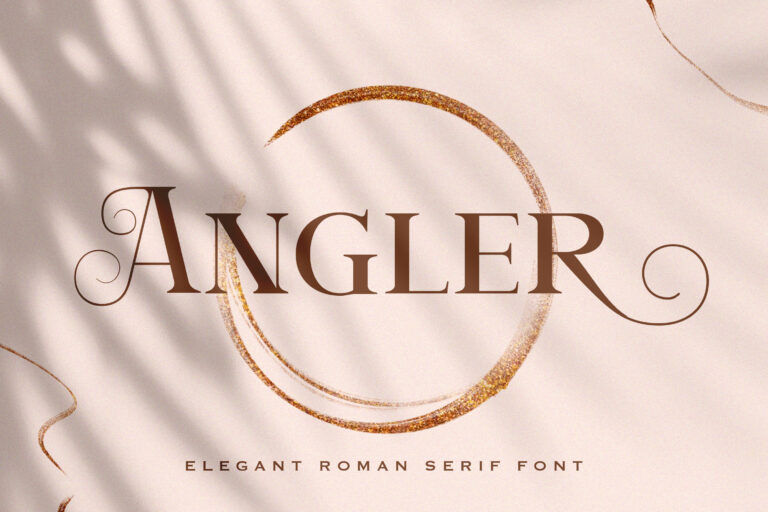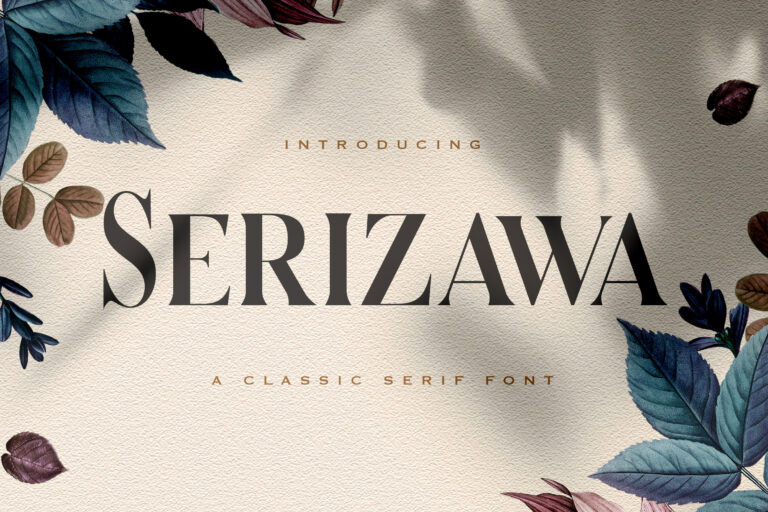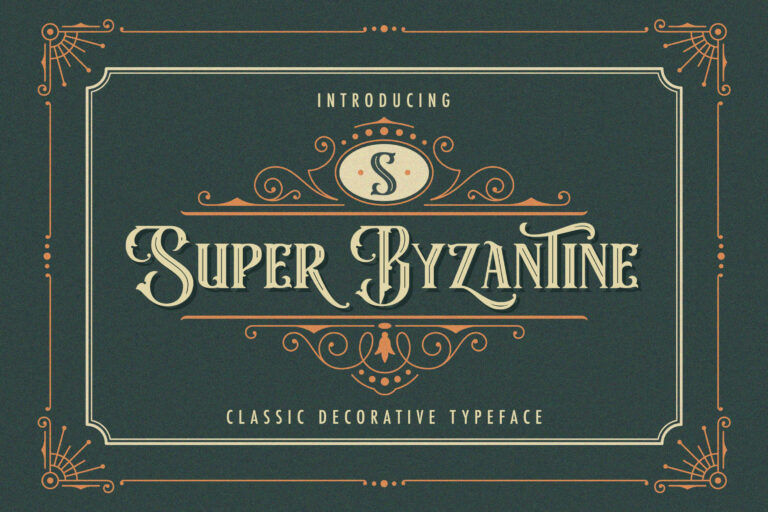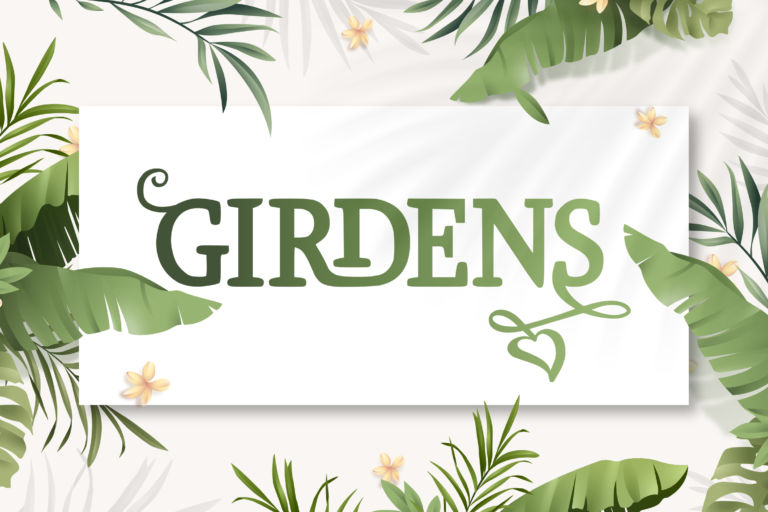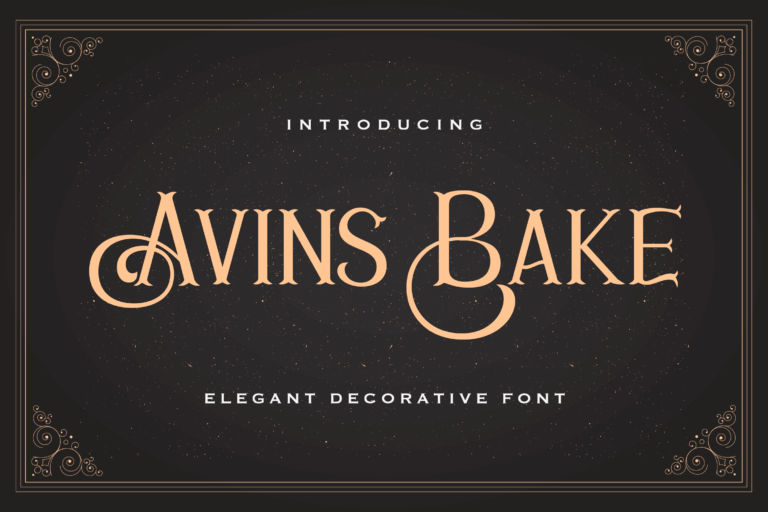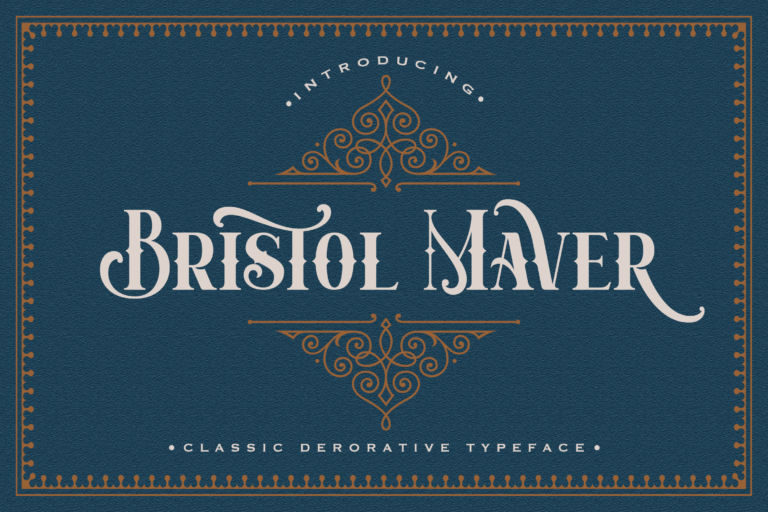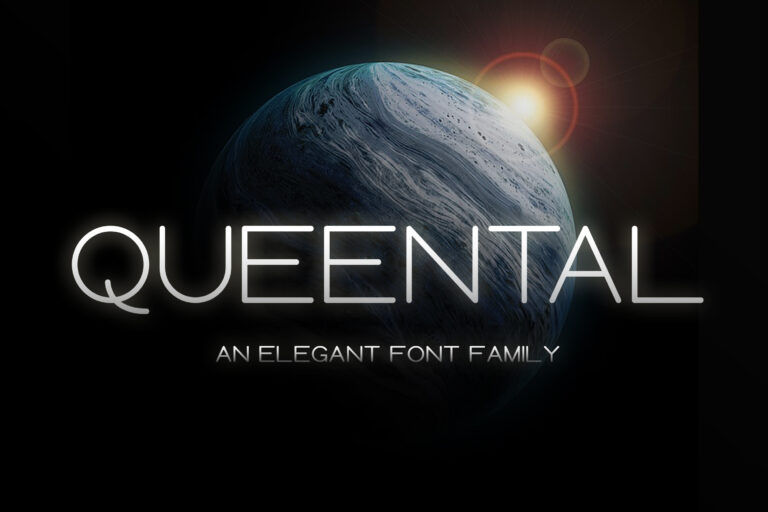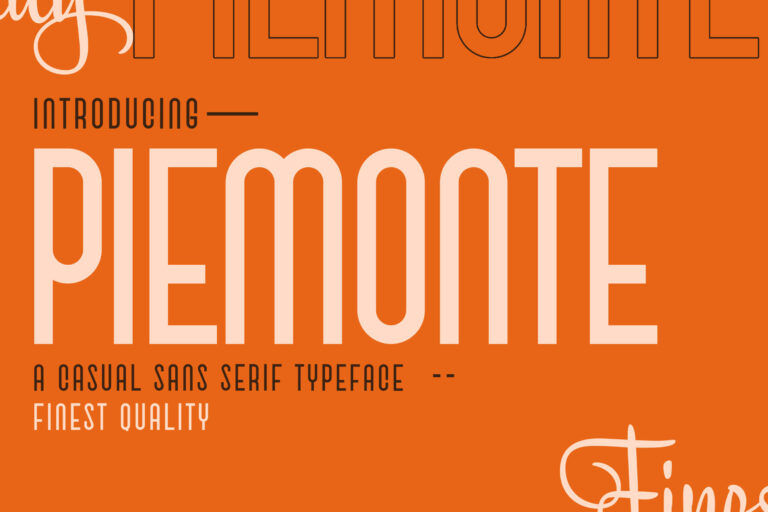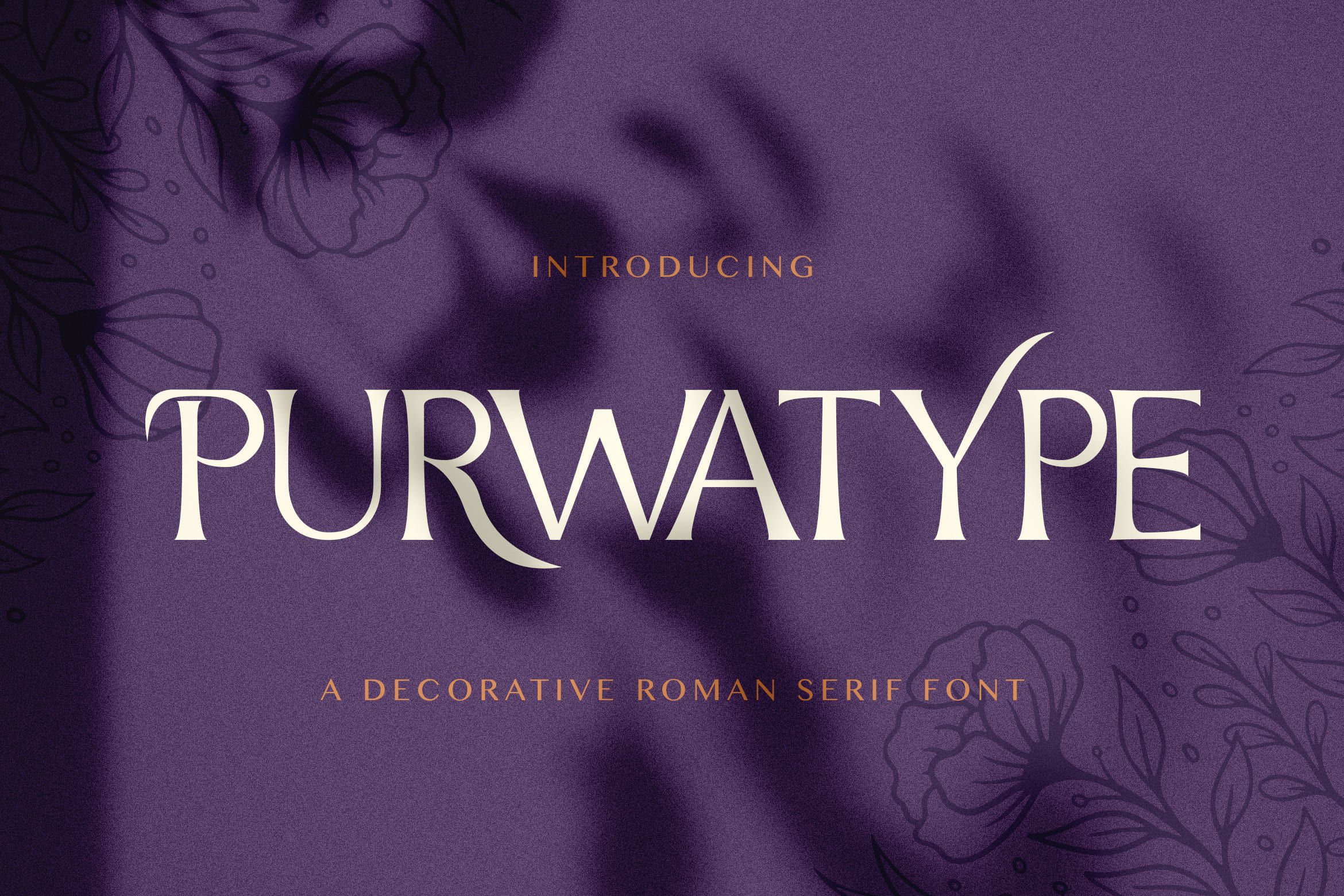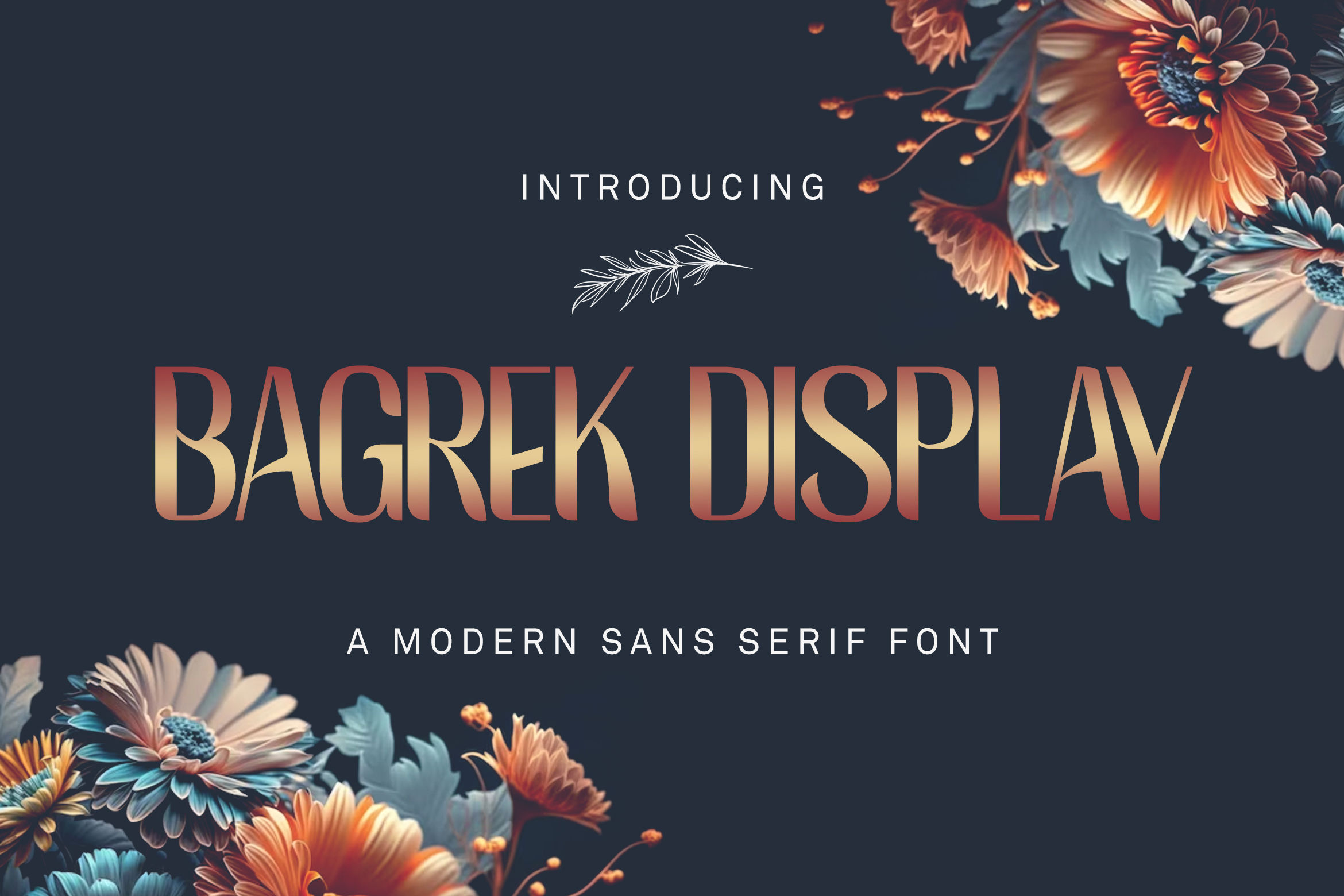
20 Elegant Fonts That Look Good in All Caps for Any Projects
A 2024 survey found that 76% of designers prioritize readability and accessibility when choosing fonts, proving that style should always go hand in hand with clarity. This matters most in headlines, where using elegant fonts that look good in all caps lets you pull off a bold, luxurious look without making your text hard to read.
Unfortunately, not every typeface performs well in uppercase. Therefore, this guide showcases the most elegant all-caps fonts that combine sophistication, balance, and visual impact to elevate your next creative project. Read on to discover the perfect font for your designs!
• Elegant fonts that look good in all caps create bold, readable, and professional typography for various creative projects.
• The best capital-letter fonts always balance how readable they are, their spacing, and the mood of the design.
In the following, we’ve shortlisted a list of twenty elegant capital font choices that remain stunning for any design project. Follow through to see a full collection!
1. Mediqa
Sharp serifs and balanced proportions give every uppercase word a luxurious presence. This style is the go-to choice for creating jewelry logos, premium packaging, fashion magazines, and sophisticated branding.
2. Serizawa
Serizawa font is best for capital letters. Its elegant strokes with subtle Eastern influences create uppercase typography that feels artistic without losing clarity. A beautiful choice for restaurants, cultural events, and high-end editorial designs.
3. Bagator
Bold serif details deliver striking headlines while every capital letter remains polished and readable. It’s a great choice for luxury branding, book covers, corporate identities, and advertising campaigns.
4. Eurosina
Graceful letterforms paired with generous spacing create an upscale appearance in all-caps layouts. It suits hotel branding, wine labels, cosmetic packaging, and exclusive invitations.
5. Purwatype
Vintage-inspired details blend with clean uppercase shapes for a timeless visual identity. Great for artisan cafés, handcrafted products, heritage brands, and boutique packaging.
6. Bagrek Display
Oversized letterforms featuring elegant fonts that look good in all caps with dramatic contrast make every headline impossible to ignore. Best suited for posters, music festivals, esports branding, and bold promotional graphics.
7. Jhinbey
Minimal shapes and crisp edges produce elegant uppercase typography with a contemporary feel. An excellent match for technology brands, architecture studios, and modern logos.
8. Bhineka
This letterform inspired by cultural aesthetics adds personality without overwhelming the design. It offers a refined, distinctive look that works really well for tourism campaigns, museums, creative agencies, and cultural branding.
9. Avins Bake
Rounded details soften bold uppercase letters, which creates a welcoming and handcrafted impression. This font works beautifully for bakeries, cafes, dessert shops, and artisan food packaging.
10. Piemonte
Classic serif styling delivers refined uppercase headlines with timeless elegance. A natural fit for luxury hotels, wineries, premium restaurants, and fashion editorials.
11. Angler
Strong geometric capitals project confidence without looking overly aggressive. A smart pick for outdoor brands, adventure campaigns, sportswear, and rugged product packaging.
12. Girdens
Classic serif details bring authority while the uppercase letters stay crisp and elegant. Well suited for law firms, universities, editorial layouts, and luxury stationery.
13. Queental
Flowing curves and refined proportions make this one of the elegant fonts that look good in all caps, which gives every capital letter a graceful appearance. The font adds a soft, high-end touch that works beautifully for beauty products, perfume branding, and not overly feminine packaging.
14. Florien
Delicate decorative accents elevate uppercase text with a soft editorial charm. An elegant option for floral boutiques, fashion lookbooks, skincare brands, and lifestyle magazines.
15. Gokil Nova
Bold display shapes create energetic headlines without sacrificing readability. Great for entertainment brands, creative agencies, youth campaigns, and eye-catching social media graphics.